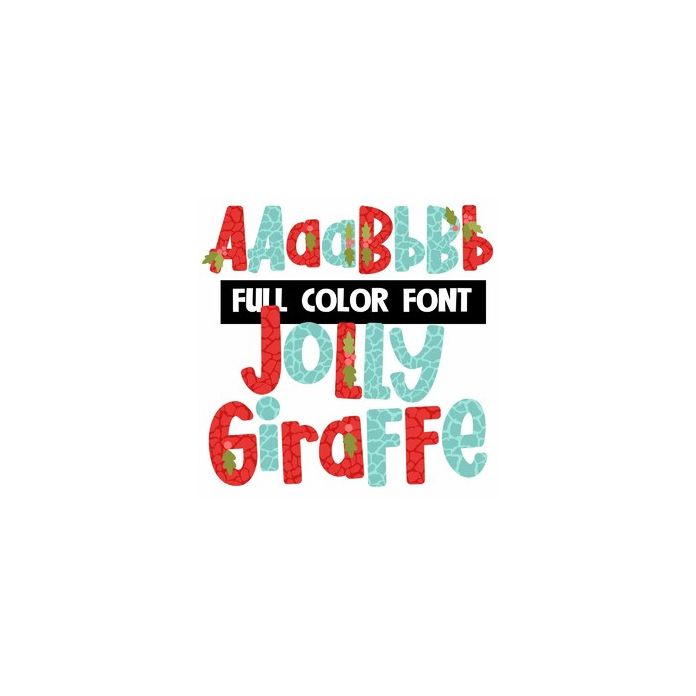
This full-color font features a giraffe print in Christmas colors with holly adornments. There is a second alt case you can access through your system or Silhouette's glyph map with additional colors.